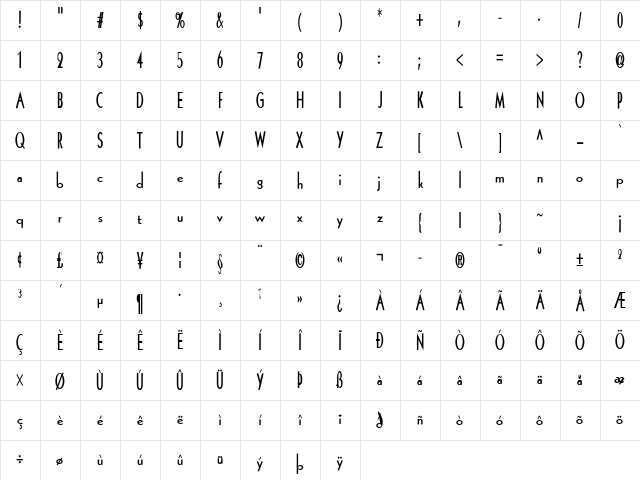
Schlimeyer Book Plain Free Font
Schlimeyer Book Plain
Style: Plain
Design Context for Schlimeyer Book
Schlimeyer Book is a composed and adaptable typeface that performs quietly and consistently across a wide range of design contexts.